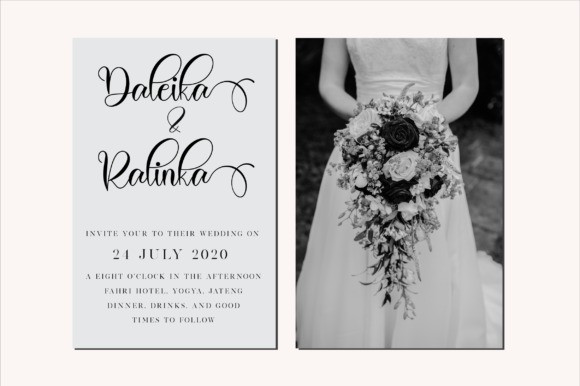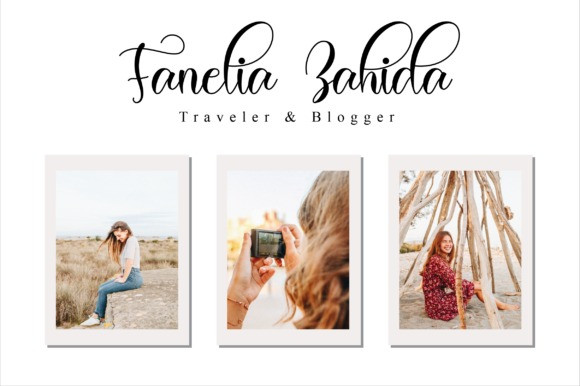
Bellona Font
Bellona Script Font feels equally charming and elegant. It looks stunning on wedding invitations, thank you cards, quotes, greeting cards, logos, business cards and every other design which needs a handwritten touch.